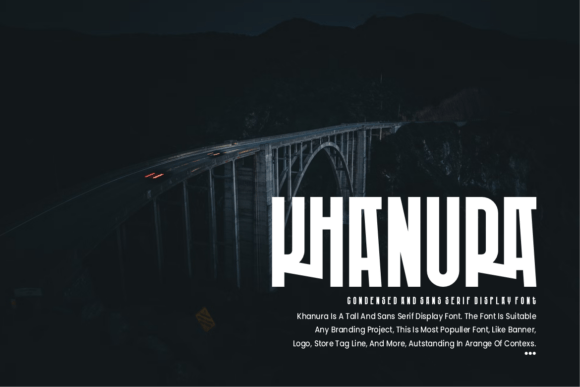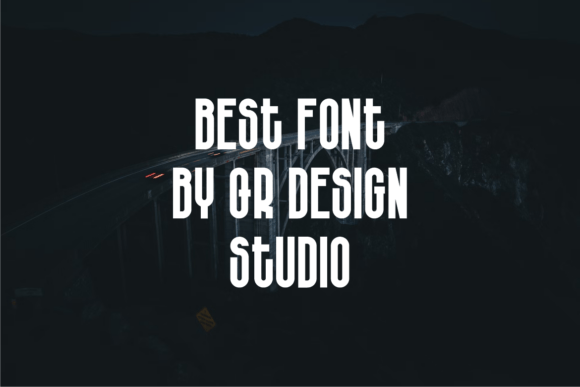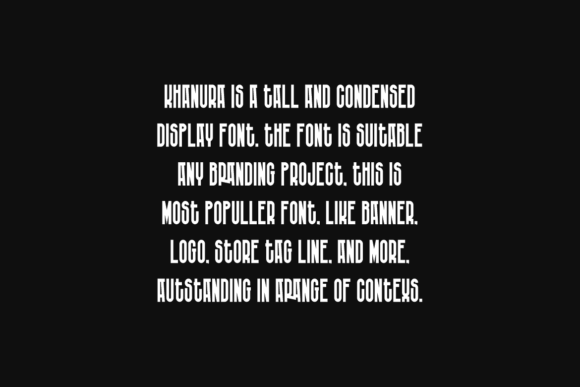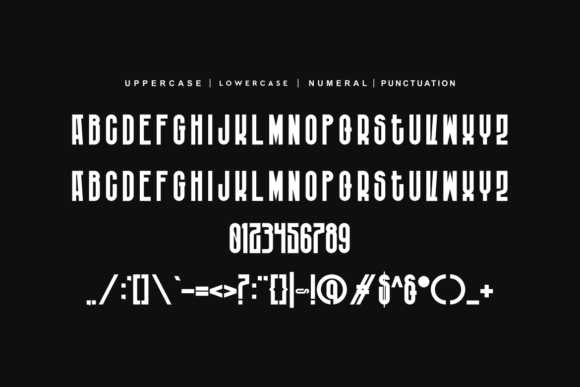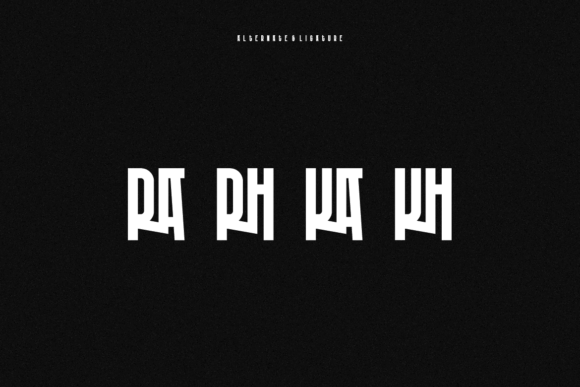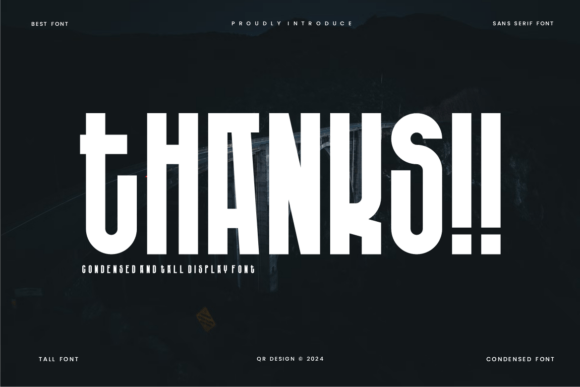
Introduction to Khanura Font
Remember that moment when you were brainstorming ideas for your latest design project and everything just fell into place? The perfect combination of colors, typography, and creativity that left you feeling elated and inspired? For designers, that feeling is what drives us to push the boundaries of our craft and create something truly remarkable. And that’s exactly what the Khanura Font can bring to your next creative project.
As a bold and authentic display font, Khanura Font is the perfect addition to any branding project, from logos to sports-related designs. Its high-quality design and transparent background make it an ideal design resource for any creative endeavor. Whether you’re working on a free download or a paid project, Khanura Font is sure to elevate your design to the next level.
Key Features of Khanura Font
- Features a transparent background, making it easy to combine with other design elements.
- Designed with a unique, modern aesthetic, making it perfect for innovative and artistic projects.
- Includes a comprehensive character set, covering multiple languages and script types.
Honest Review: Khanura Font
As a designer, I’m always on the lookout for high-quality design resources to elevate my creative projects. The Khanura Font caught my attention, and I’m excited to share my honest review with you.
- Clean and modern design aesthetic that’s perfect for creative projects
- Transparent background makes it easy to layer and combine with other design elements
- May not be suitable for projects requiring a more traditional or formal font style
- No bold or italic font variations available, which might limit its versatility
Overall, I’m impressed with the Khanura Font’s simplicity and modernity. While it may have some limitations, its clean design aesthetic and free download make it a valuable addition to any designer’s toolkit. If you’re working on a creative project that requires a modern and sleek font, the Khanura Font is definitely worth considering.
Tips for Getting the Most Out of Khanura Font
Khanura Font is a versatile font that can be used in a variety of creative projects, including graphic design, digital art, and typography. It’s a great choice for designers who want to add a touch of elegance and sophistication to their work.